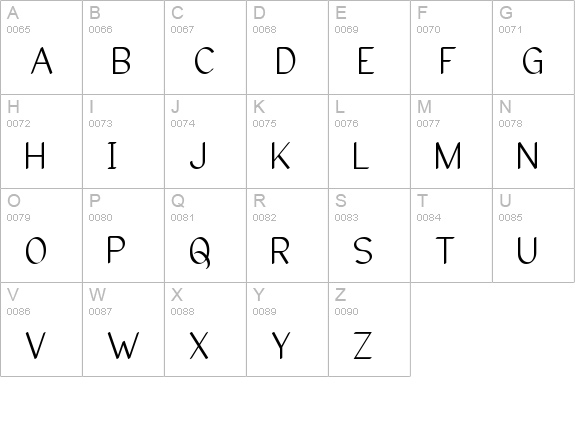
Elfar Normal G98 is the standard, neutral variant in the Elfar typeface family \xE2\x80\x94 well suited to general body text, paragraphs, and standard typographic work.
Elfar Normal G98 font is a modern and versatile typeface that combines elegance with simplicity. With its clean lines and balanced proportions, this font is perfect for a wide range of design projects, from branding to editorial design. Its timeless appeal makes it suitable for both digital and print applications. What sets Elfar Normal G98 font apart is that it is available for free download at FontsMarket.com. This means that you can easily access and use this high-quality font without any cost, making it a valuable addition to your font library. Whether you are a designer, developer, or creative enthusiast, Elfar Normal G98 font offers endless possibilities for your projects. Elevate your designs with this beautiful and free typeface today!